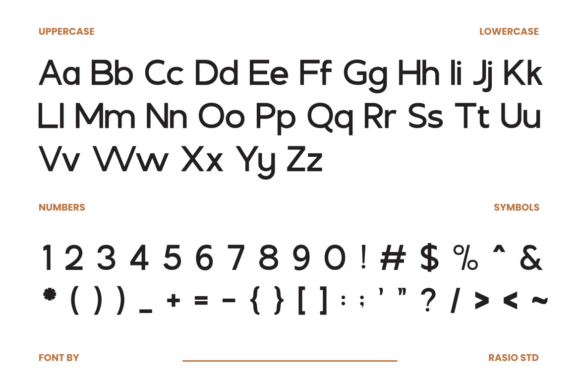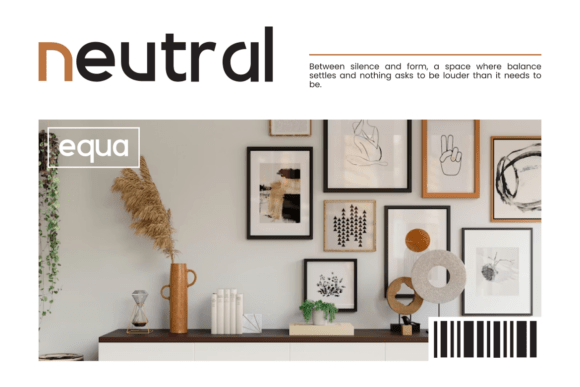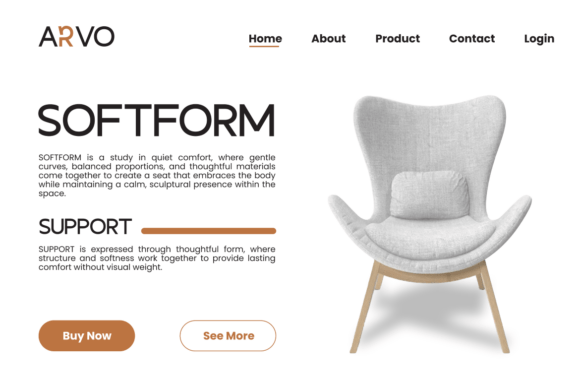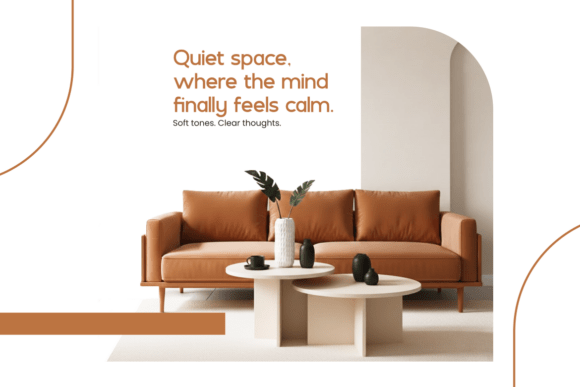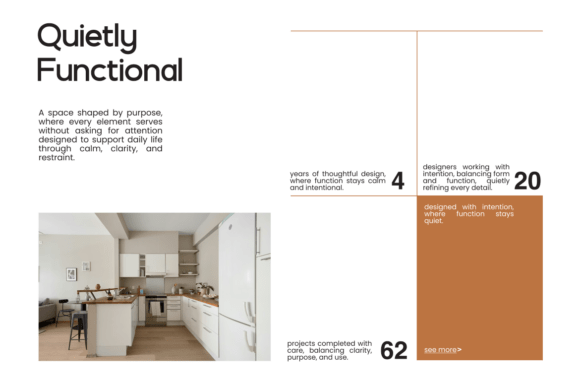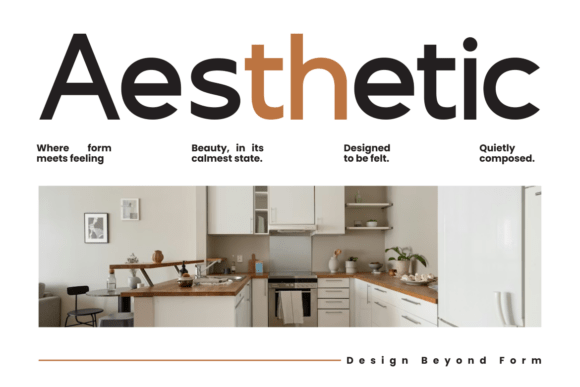
Bredia Font: Elevate Your Design with Modern Clarity
In the world of typography, a well-crafted font can make all the difference in communicating your brand’s message effectively. Introducing Bredia, a modern, clean sans serif typeface that embodies the perfect blend of clarity and contemporary aesthetics. Designed with precision and simplicity in mind, Bredia is the ideal choice for brands seeking to elevate their visual identity.
Bredia boasts a range of design characteristics that set it apart from other typefaces. Its balanced proportions ensure that each letterform is harmonious and visually appealing, making it perfect for use in a variety of applications, from digital interfaces to printed compositions. The font’s geometric influences provide a sense of structure and stability, while its soft terminal cuts add a touch of warmth and approachability.
Bredia is a comprehensive typeface that includes:
- Full uppercase and lowercase characters, allowing for versatile use in various design contexts.
- Numerals, ensuring that your designs are always legible and precise.
- Punctuation and symbols, providing everything you need to create cohesive and polished compositions.
Applications
Bredia’s versatility makes it suitable for a wide range of applications, including:
- Digital interfaces: Bredia’s clean lines and balanced proportions make it perfect for use in websites, mobile apps, and other digital platforms.
- Printed compositions: Whether you’re designing a brochure, business card, or poster, Bredia’s clarity and precision ensure that your message is conveyed effectively.
- Branding: Bredia’s modern aesthetic makes it an excellent choice for brands seeking to establish a strong visual identity.
Why Choose Bredia?
In a crowded marketplace, it’s essential to stand out from the competition. By choosing Bredia, you’ll benefit from:
- Improved legibility: Bredia’s clear and concise design ensures that your message is conveyed quickly and easily.
- Enhanced professionalism: Bredia’s modern aesthetic and precision craftsmanship make it perfect for brands seeking to establish a professional image.
- Flexibility: With its comprehensive character set and versatile design, Bredia can be used in a wide range of applications.
Tips for Using Bredia Effectively
To get the most out of Bredia, consider the following tips:
- Pair Bredia with complementary fonts to create visual interest and hierarchy.
- Experiment with different font sizes and weights to add depth and nuance to your designs.
- Use Bredia consistently across your brand’s visual identity to establish a strong and cohesive image.
Bredia is a powerful tool for designers and crafters seeking to elevate their visual identity. With its modern aesthetic, clean design, and comprehensive character set, Bredia is the perfect choice for brands seeking to communicate their message with precision and simplicity. Whether you’re designing for digital or print, Bredia is the ideal font to help you achieve your creative goals.